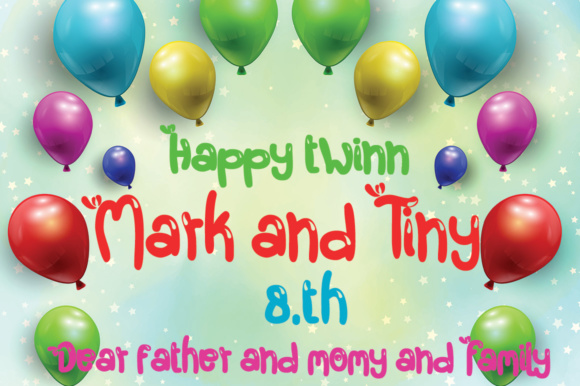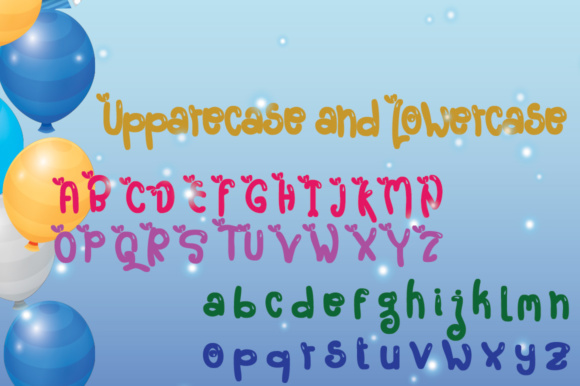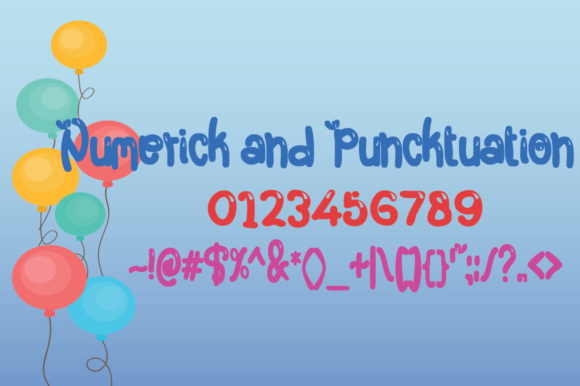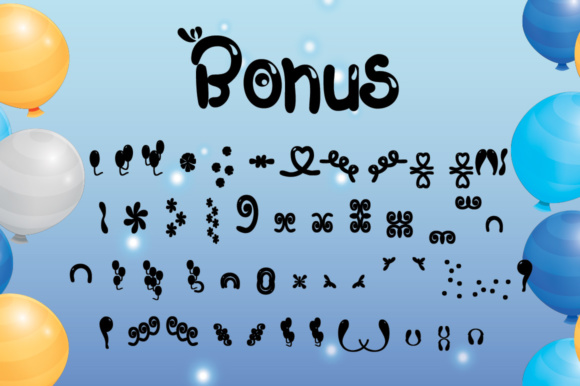
Have you ever stared blankly at a blank canvas or computer screen, struggling to come up with the perfect design concept? You’re not alone. As creatives, we’ve all been there. But sometimes, all it takes is the right tool to spark our imagination and get our creative juices flowing again. For me, it was discovering the Baloon Dory Font – a playful display font that added a much-needed splash of fun to my latest design project.
Designed to evoke a sense of childlike wonder, the Baloon Dory Font is the perfect solution for any design that needs a lighthearted, carefree feel. Whether you’re working on a children’s book, a birthday party invitation, or a social media campaign, this font is sure to bring a smile to your face and your audience’s. As a designer, having the right tools at your disposal can make all the difference – and the Baloon Dory Font is a valuable addition to any creative arsenal.
Balloon Dory Font Key Features
- Font Family: Balloon Dory
- Font Size: Supports font sizes ranging from 8pt to 120pt, with optimal readability at 12pt to 48pt
- Resolution: Designed for high-resolution displays, with optimal performance at 300 DPI (dots per inch) and above
- Unique Characteristics: This font features a whimsical, hand-drawn design with rounded shapes and soft lines, making it ideal for creative and playful applications
- Font Weight: Available in Regular, Bold, and Italic styles, allowing for versatility in design and layout
Review of Baloon Dory Font
Overall, I’m impressed with the whimsical charm of the Baloon Dory Font. ✨ Its unique, hand-drawn feel and playful curves make it perfect for projects that need a touch of personality.
- ✨ Highly expressive and versatile font, suitable for a wide range of applications
- ✨ Supports various weights and styles, allowing for a lot of creative freedom
- ✨ Easy to read, even at smaller font sizes
- ⚠️ Limited language support, which may be a concern for projects requiring multiple languages
- ⚠️ May not be suitable for projects requiring a very professional or formal tone
- ⚠️ Some users may find the font too playful or childish for certain applications
Overall, I think Baloon Dory Font is a great choice for projects that need a bit of flair and personality. While it may not be suitable for every project, it’s definitely worth considering for anything that requires a touch of whimsy.
Getting the Most Out of Balloon Dory Font
Use the Balloon Dory Font to add a playful touch to your designs. It pairs well with bright colors and bold graphics. Experiment with different font sizes and styles to create a unique look.
The Balloon Dory Font is ideal for use in children’s party invitations, birthday decorations, and playful branding materials. It’s also a great choice for adding a whimsical touch to educational materials and advertising campaigns.